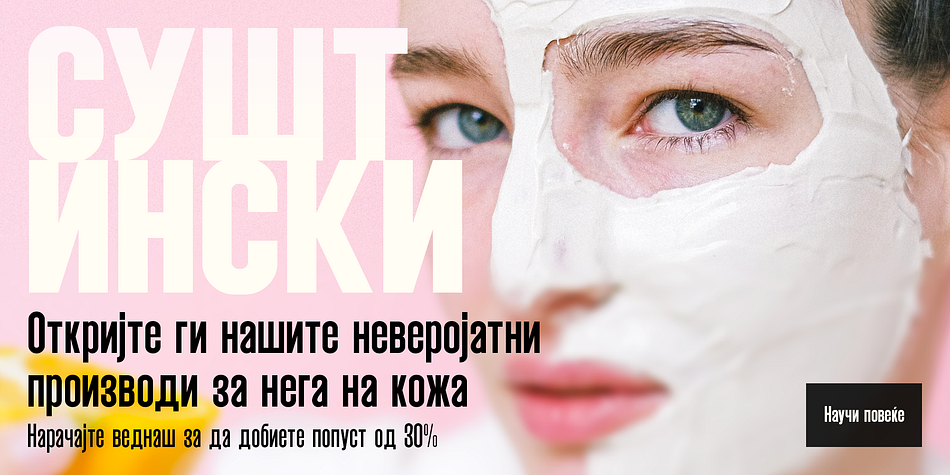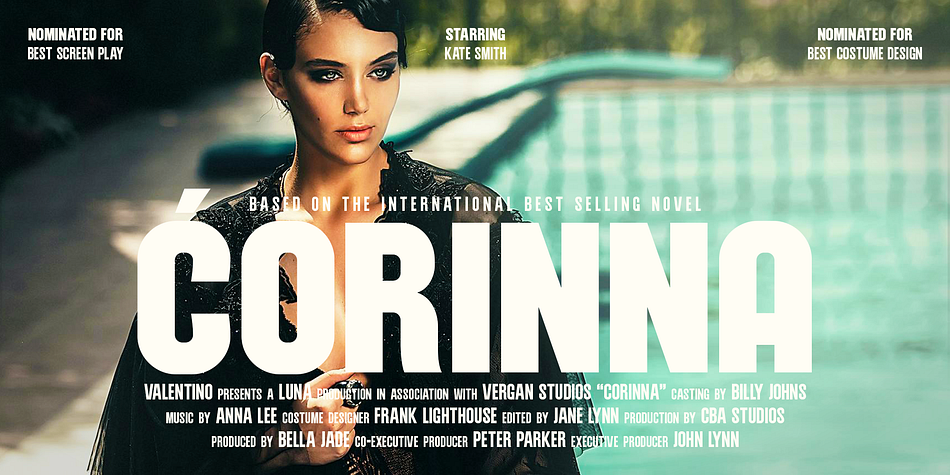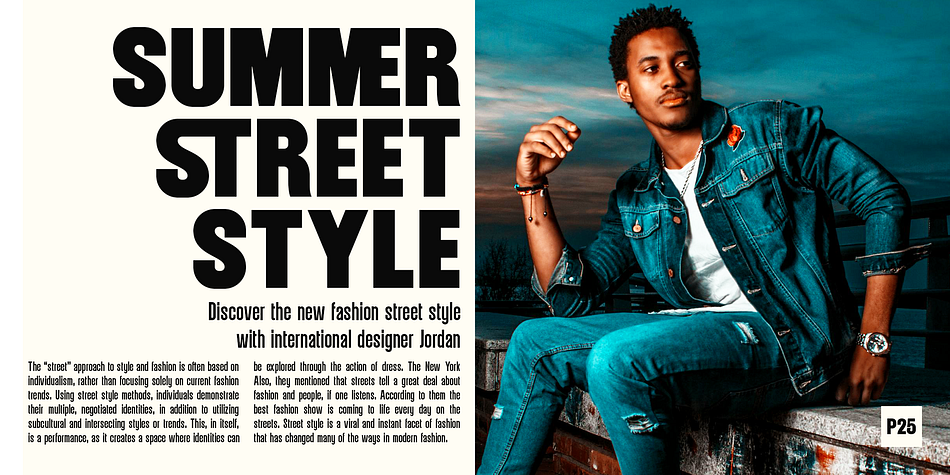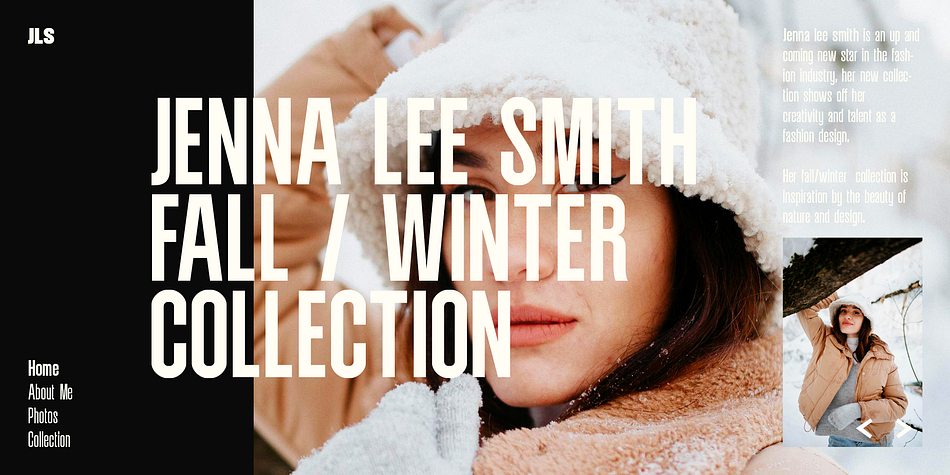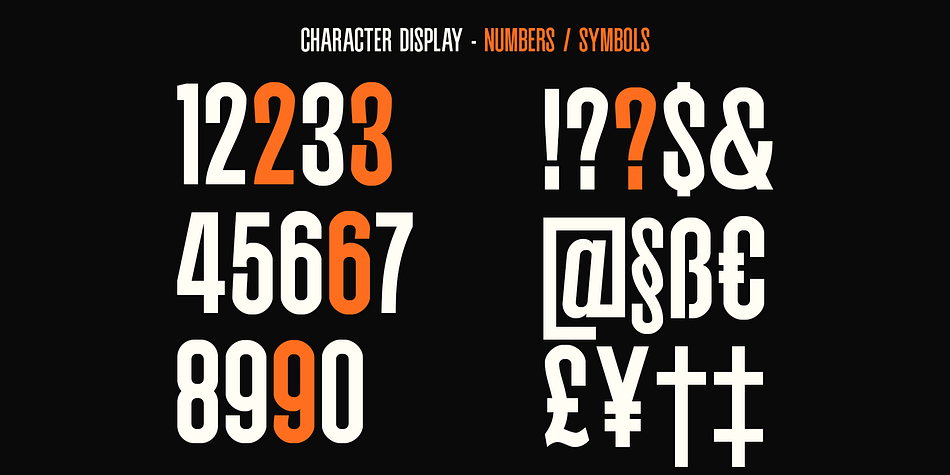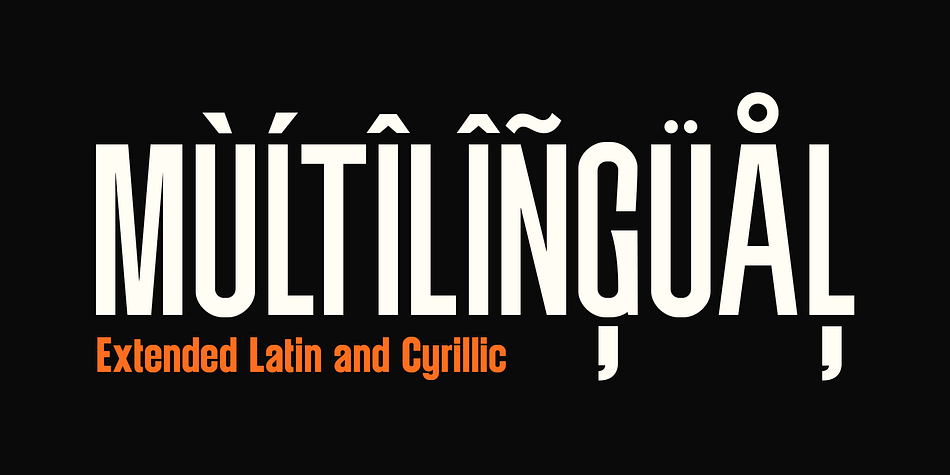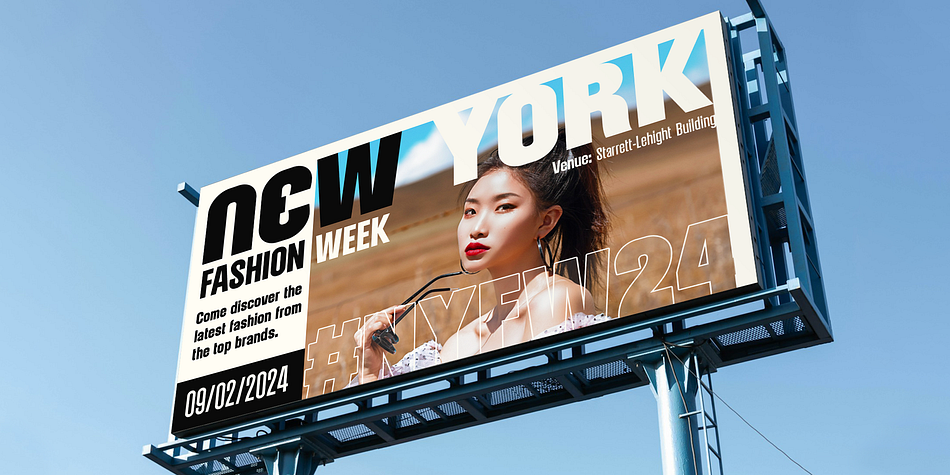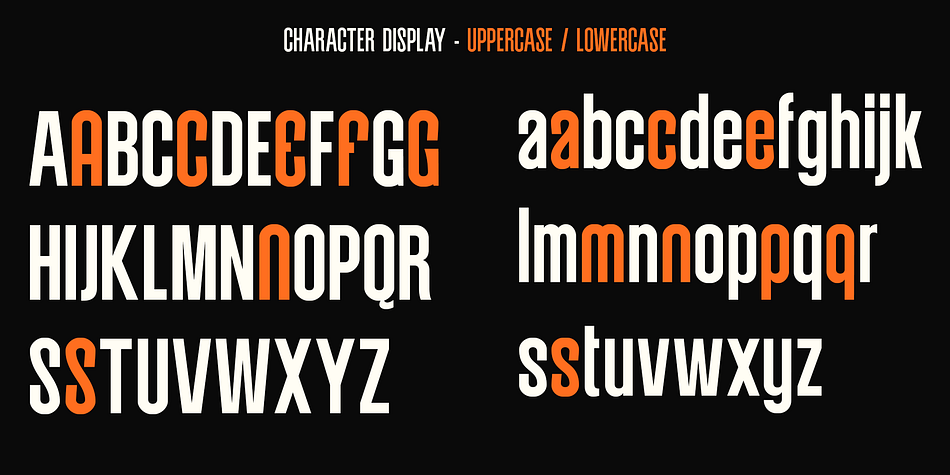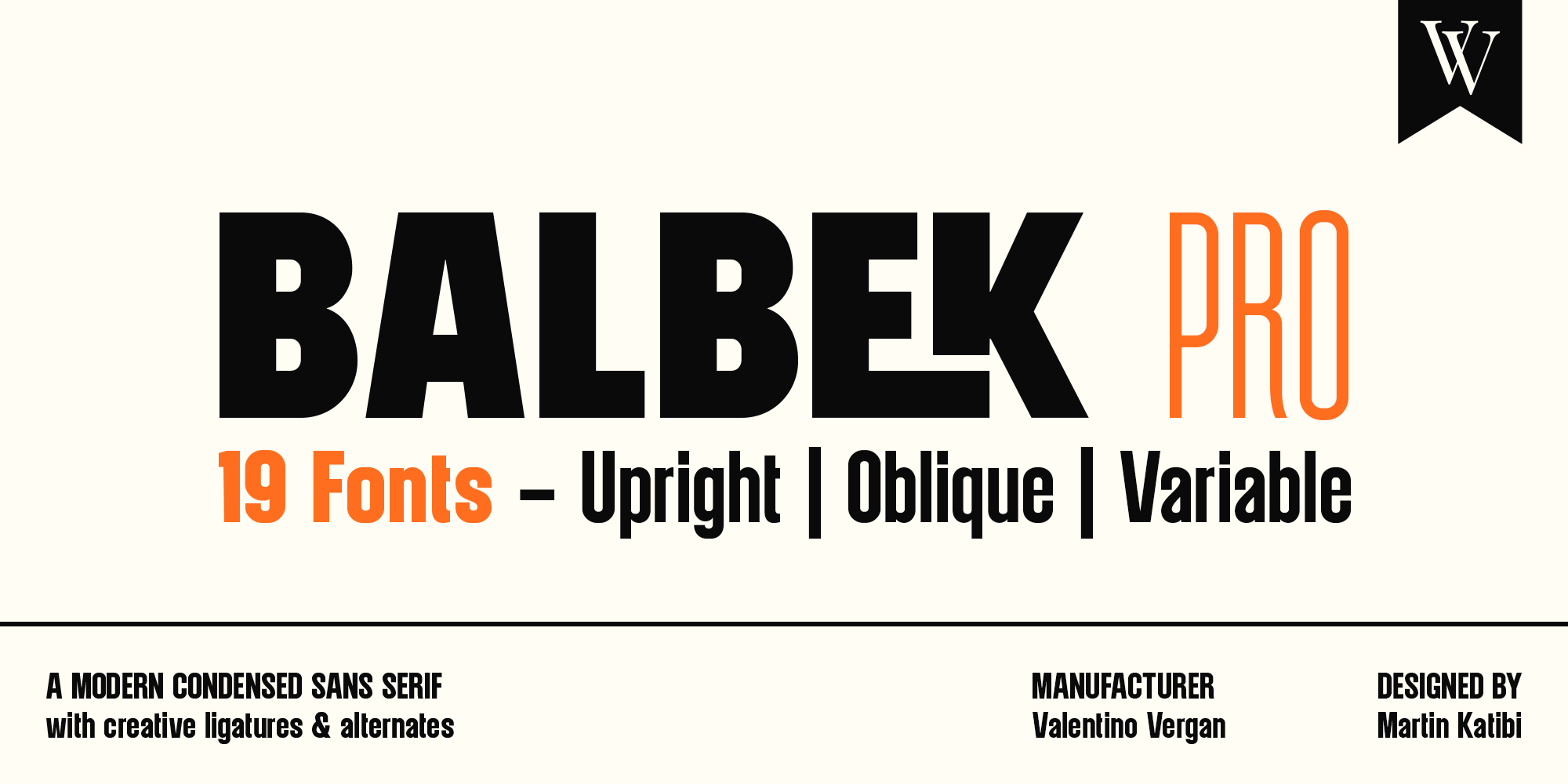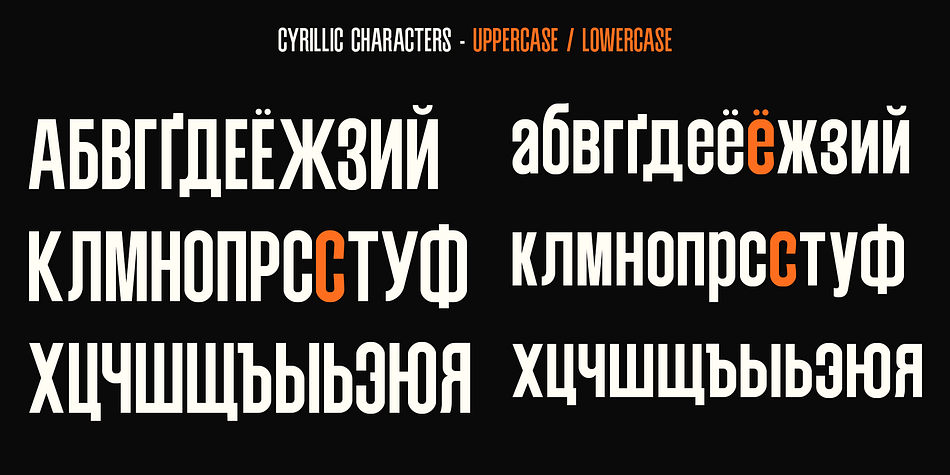
Balbek Pro
Designed by Martin Katibi, Balbek Pro is a sans serif font family. This typeface has nineteen styles and was published by Valentino Vergan.
Balbek Pro is a modern sans serif typeface that embodies architectural balance, geometric strength, and a touch of industrial elegance. Crafted for visual impact, it brings a commanding presence to logos, branding, editorial layouts, and high-end digital experiences.
With its clean lines and subtly sharp details, Balbek Pro strikes the perfect balance between sophistication and edge—making it the ideal font for creative professionals who demand clarity, confidence, and contemporary style in every project.
Whether you’re designing for tech startups, luxury branding, fashion editorials, or cutting-edge digital products, Balbek Pro delivers a timeless typographic voice that speaks volumes.
PERFECT FOR:
Brand identity systems
Editorial & magazine layouts
UI/UX and web design
Advertising campaigns
Packaging & product design
Command attention. Create impact. Make your message unforgettable with Balbek Pro.